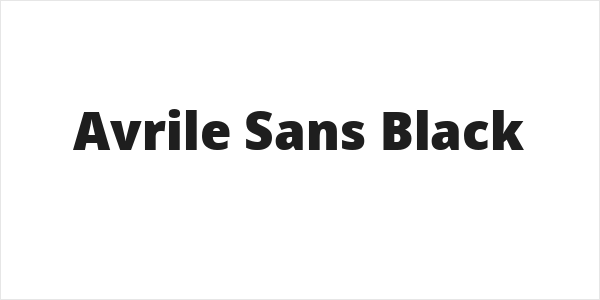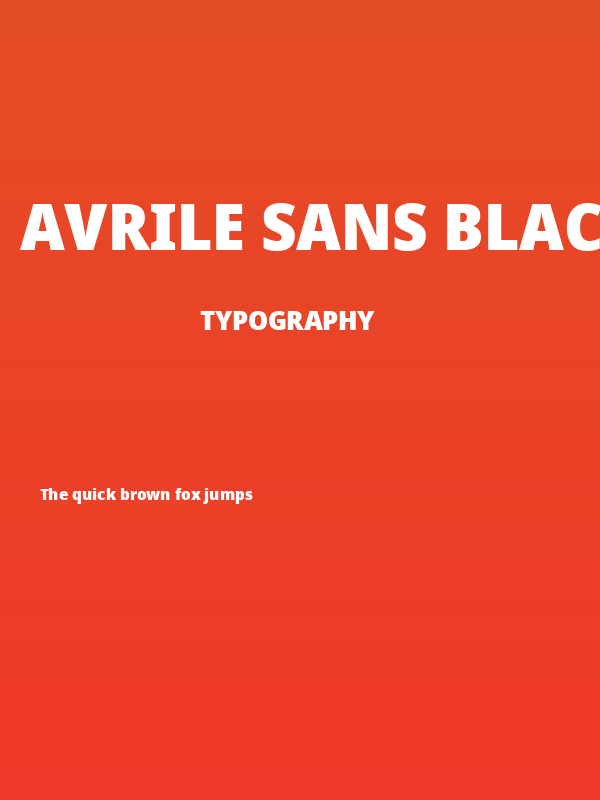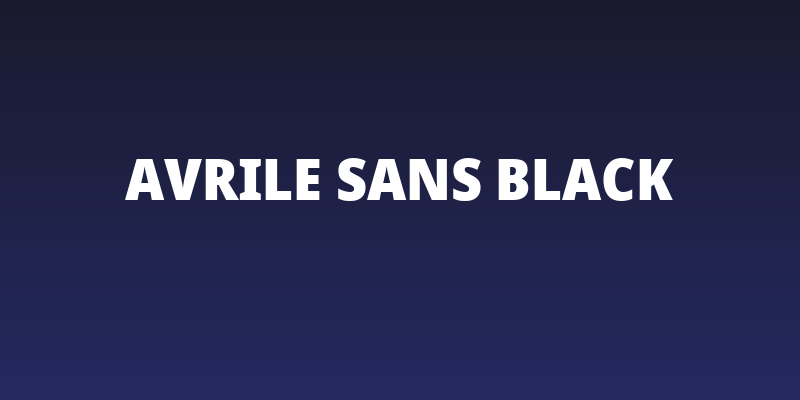
Avrile Sans Black Font
Avrile Sans Black Description
This font exhibits a bold and robust design, characterized by its thick, uniform strokes and clean lines. It features a sans-serif style, providing a modern and straightforward appearance. The uppercase and lowercase letters maintain a consistent weight, ensuring readability and impact. The numbers and special characters are equally bold, making them stand out effectively. The overall design is balanced and cohesive, suitable for a variety of applications where clarity and emphasis are needed.
Proposed ProjectsIdeal for headlines, posters, branding materials, and advertising where a strong visual presence is required.